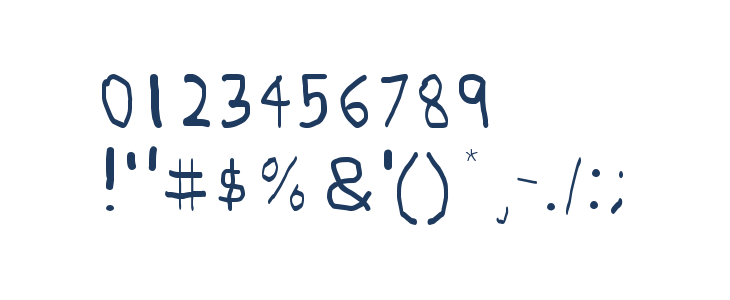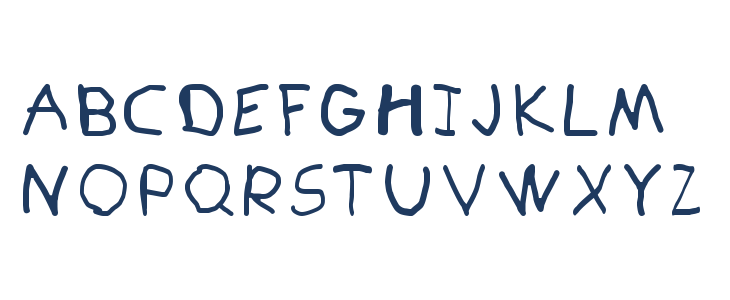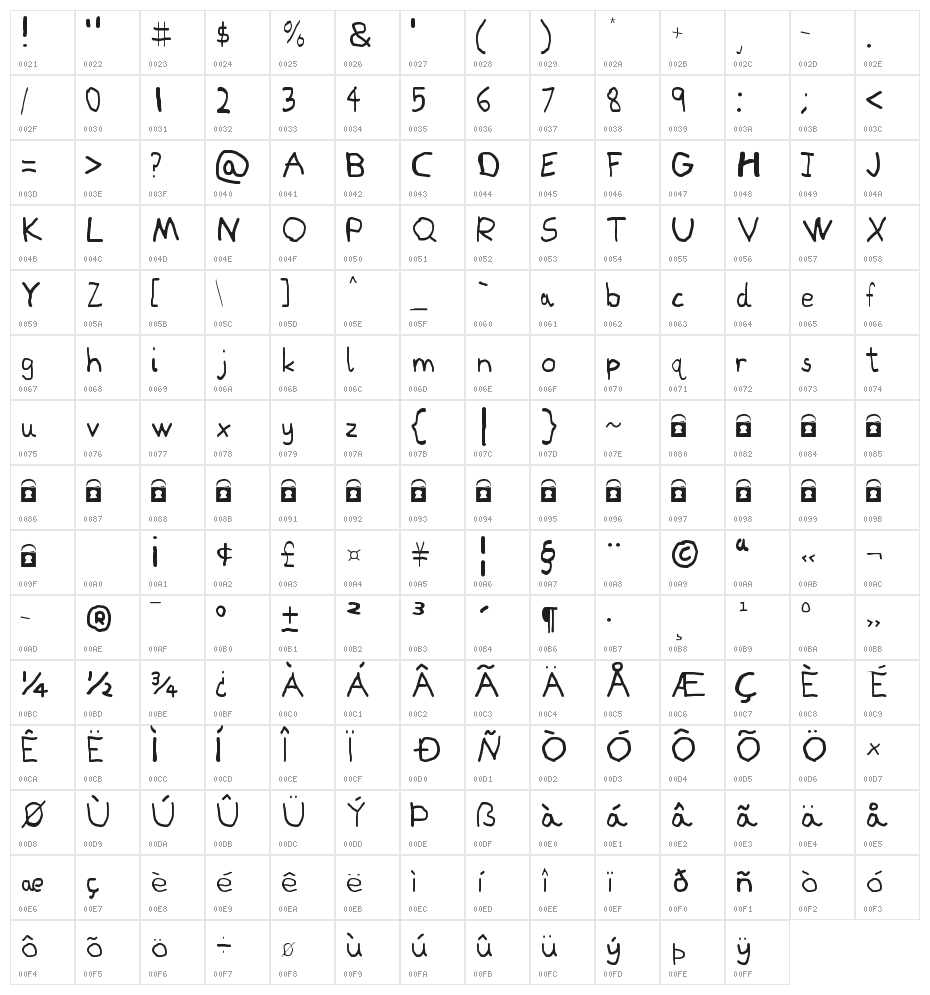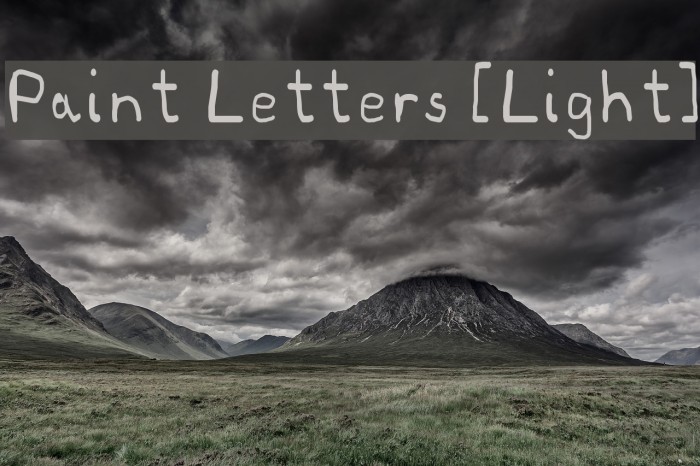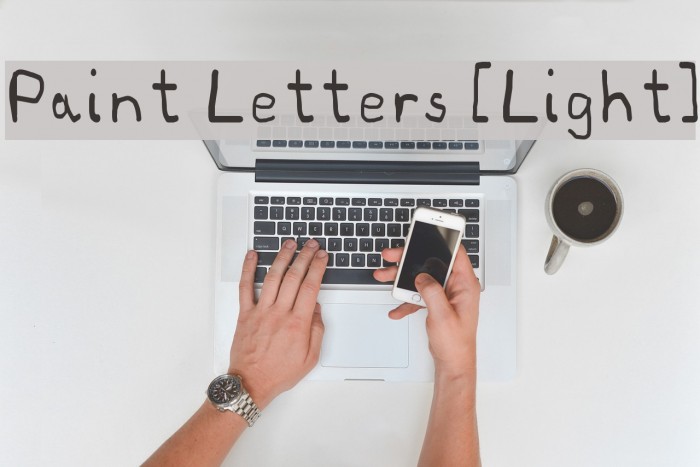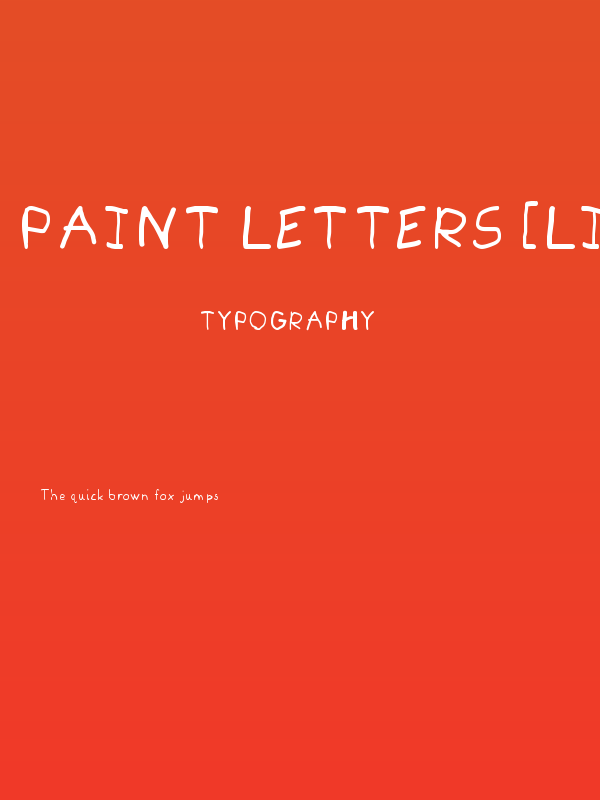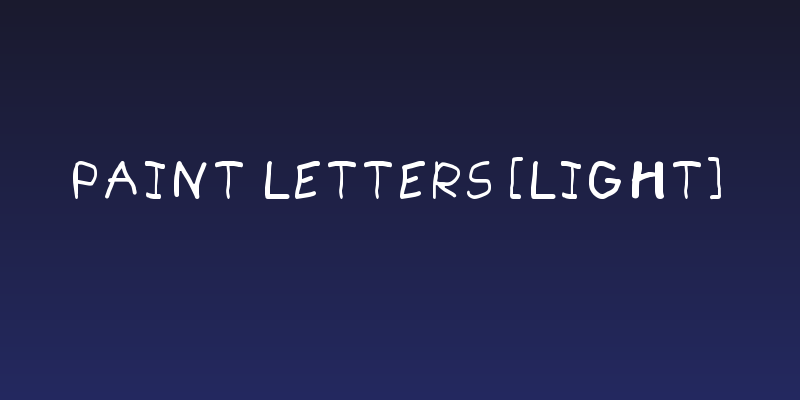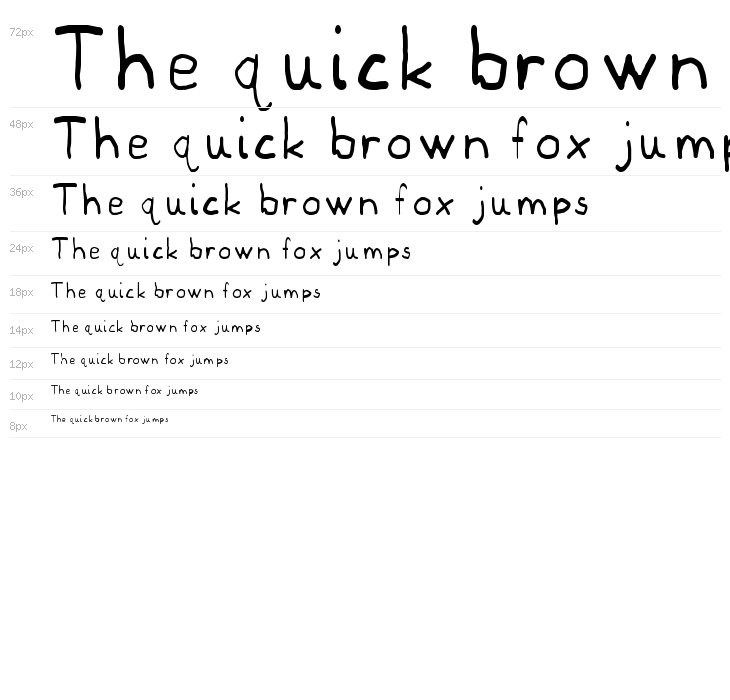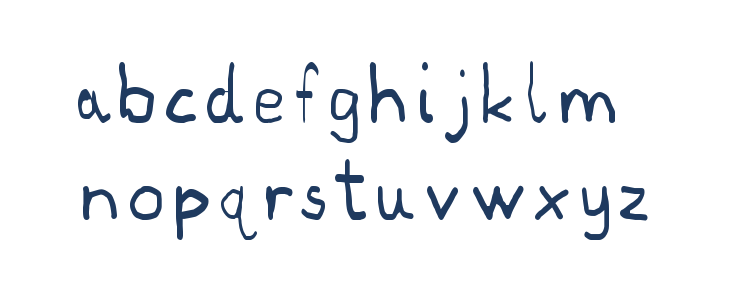
Paint Letters [Light] Font
Paint Letters [Light] Description
This font features a playful and informal handwritten style, characterized by its uneven strokes and slightly irregular shapes. The letters have a casual, painted appearance, reminiscent of brush strokes or marker writing. The uppercase and lowercase letters maintain a consistent style, with rounded edges and varying line thickness that adds to its dynamic and lively feel. Numbers and special characters follow the same aesthetic, ensuring a cohesive look across all glyphs. This font's unique charm makes it suitable for creative and artistic projects.
| Overall Style | Casual, Artistic |
| Use Case | Headlines, Creative projects, Informal designs |
| Proposed Projects | Ideal for children's books, creative posters, greeting cards, and artistic branding. |